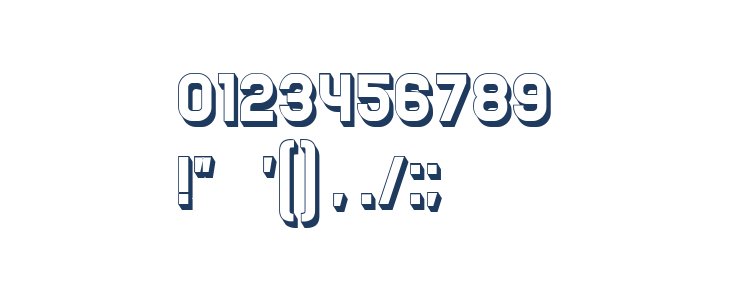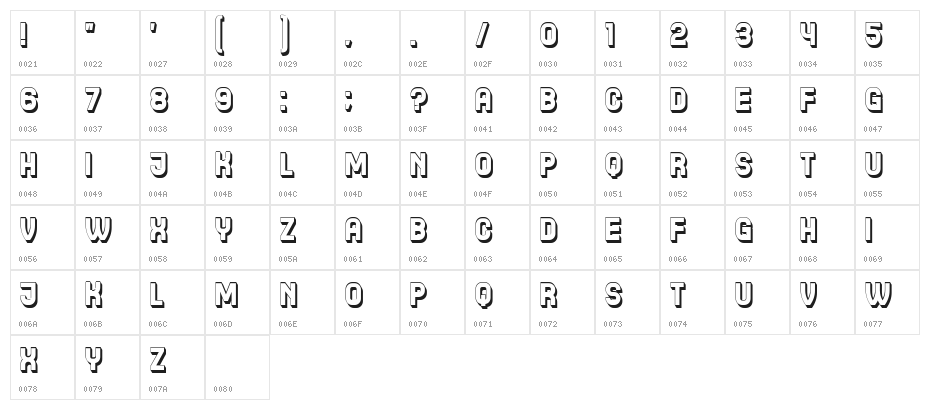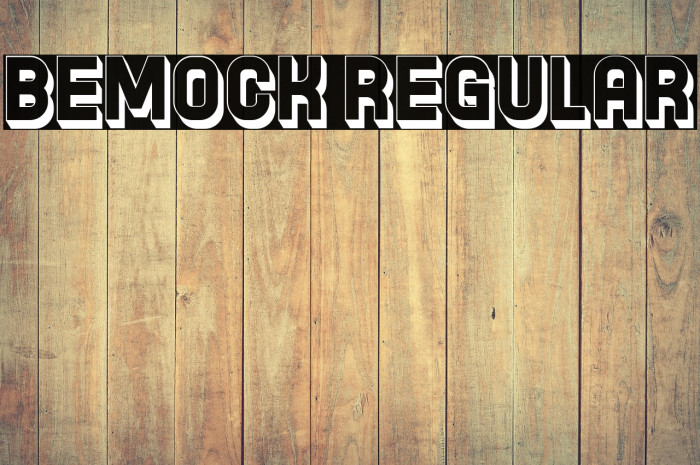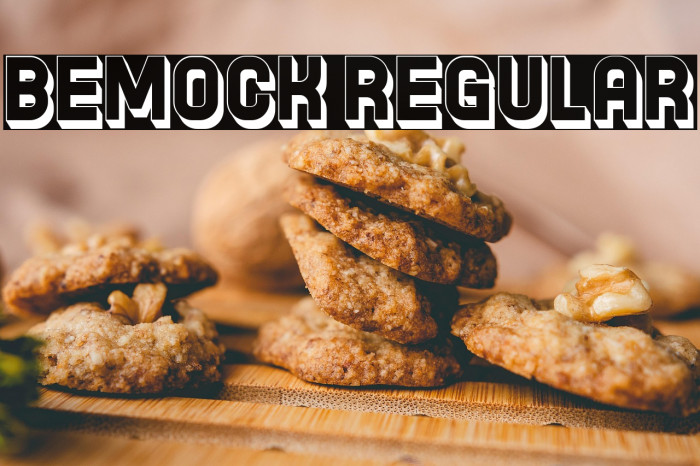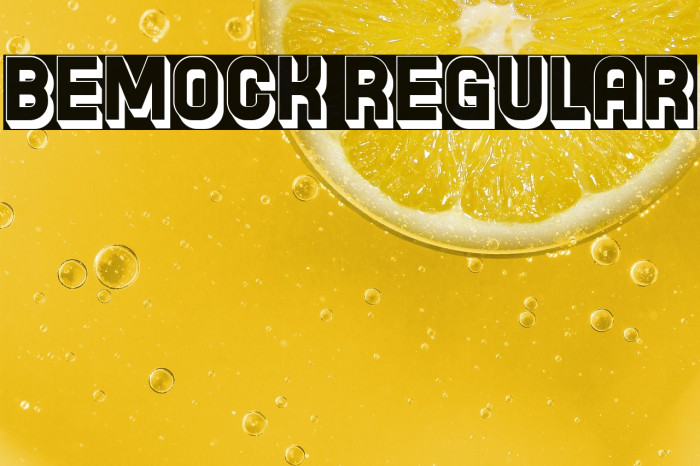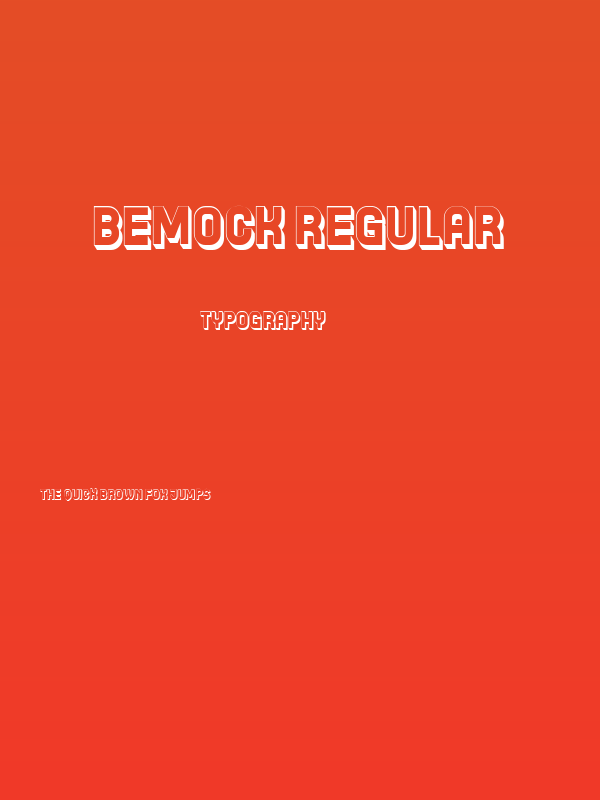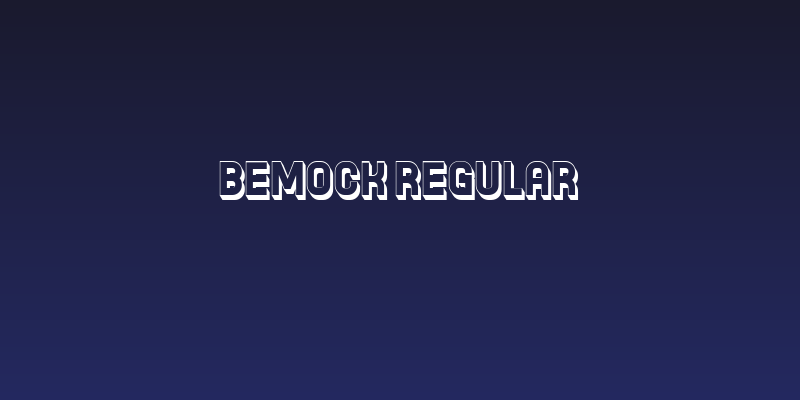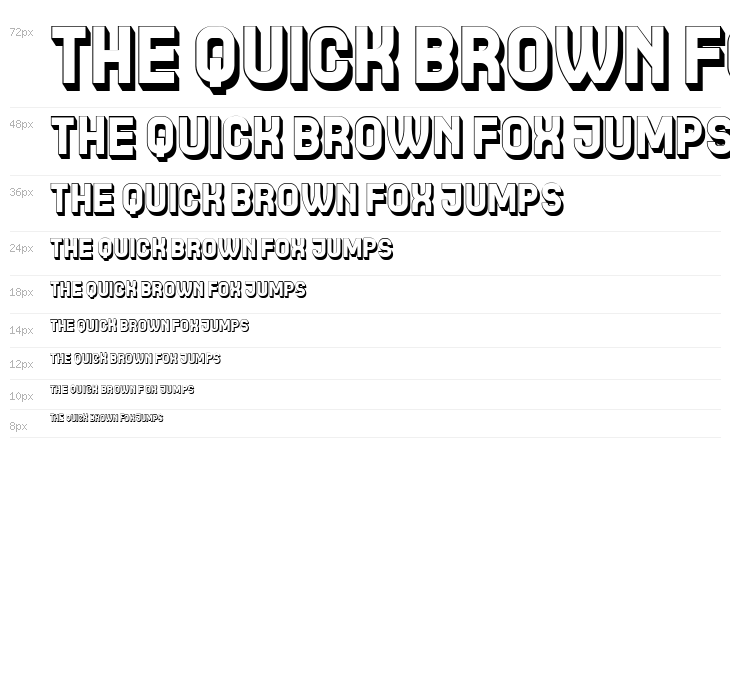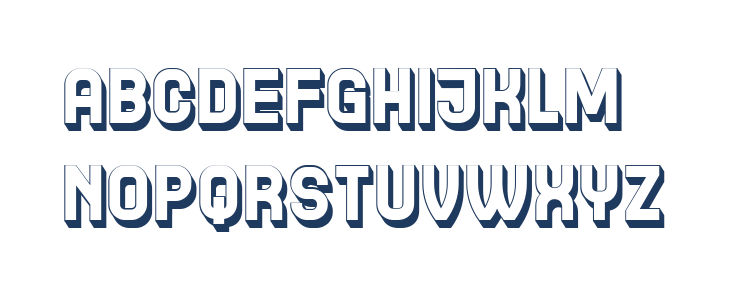
Bemock Regular Font
Bemock Regular Description
This font features a bold, three-dimensional appearance with a strong shadow effect that gives it a striking and impactful look. The characters are uppercase, with a geometric and blocky style that emphasizes their boldness. The shadowing adds depth, making it ideal for designs that require a standout element. The font's structure is clean and modern, with consistent line thickness and sharp angles that contribute to its assertive presence. The numbers and special characters maintain the same bold and shadowed style, ensuring uniformity across all elements.
| Proposed Projects | Ideal for posters, headlines, logos, and any design needing a bold, eye-catching typeface. |